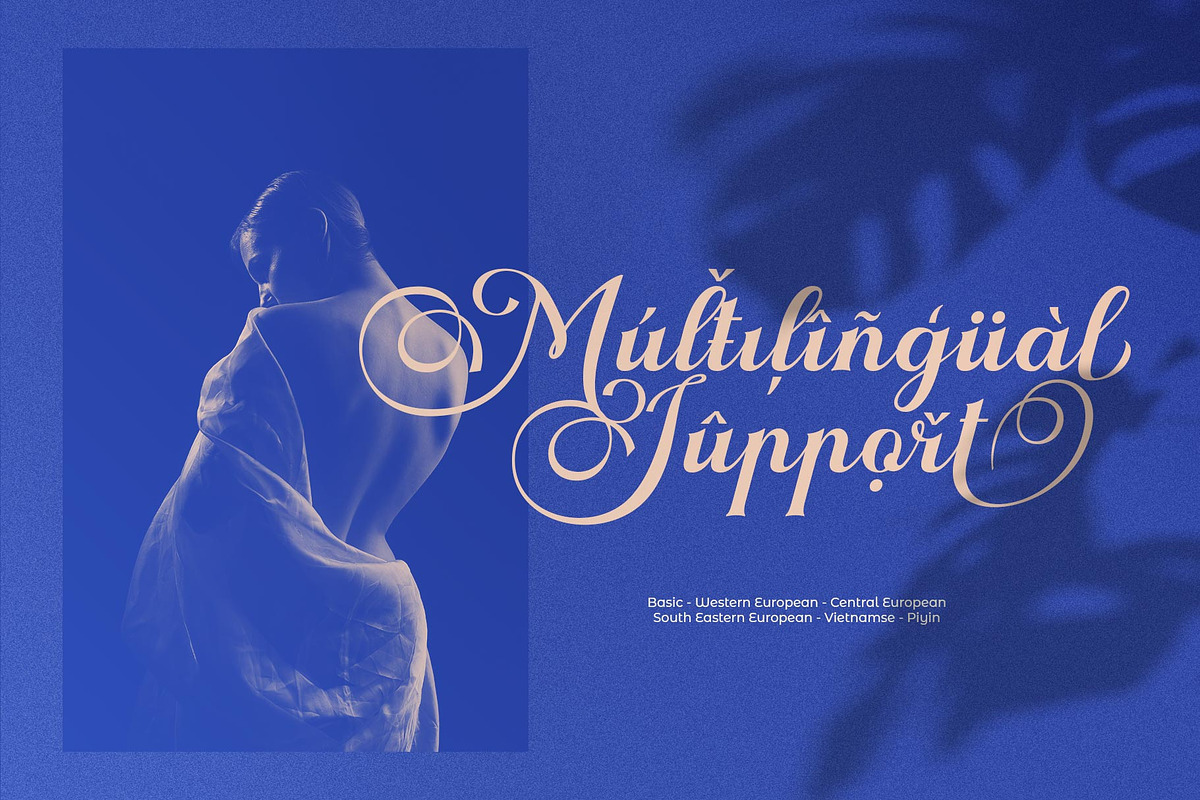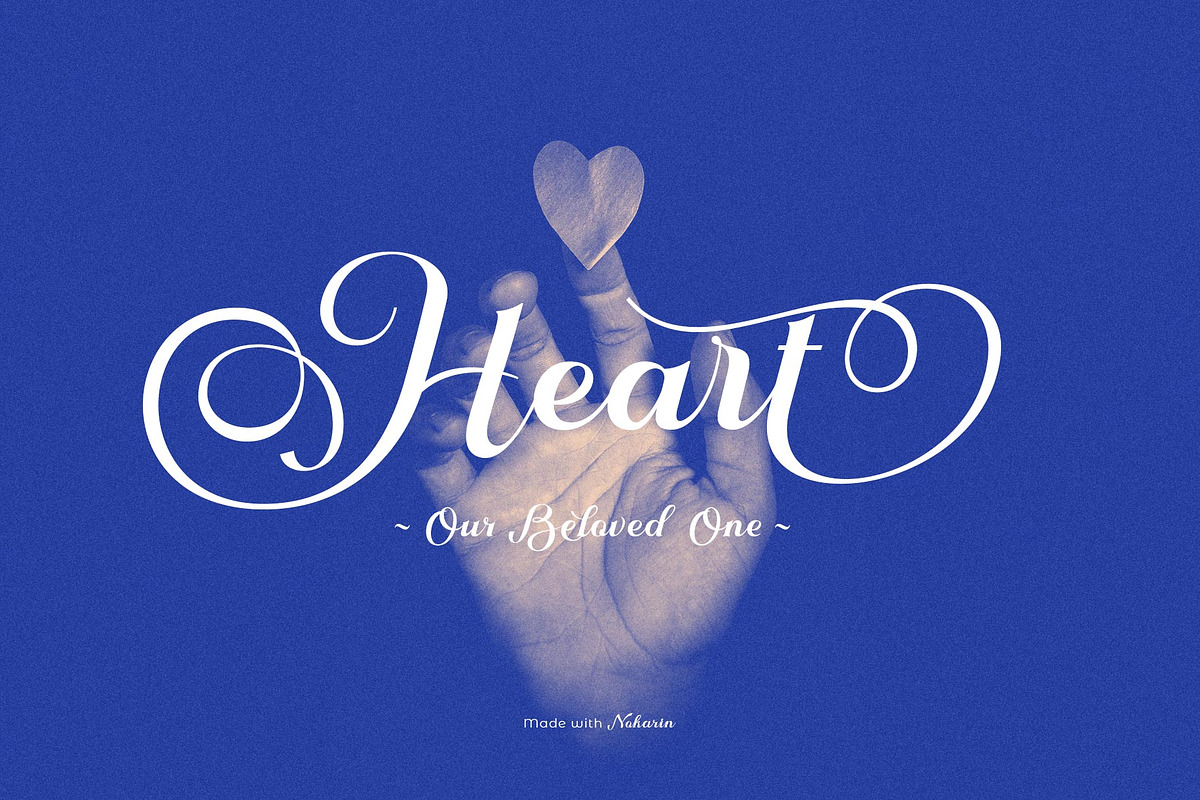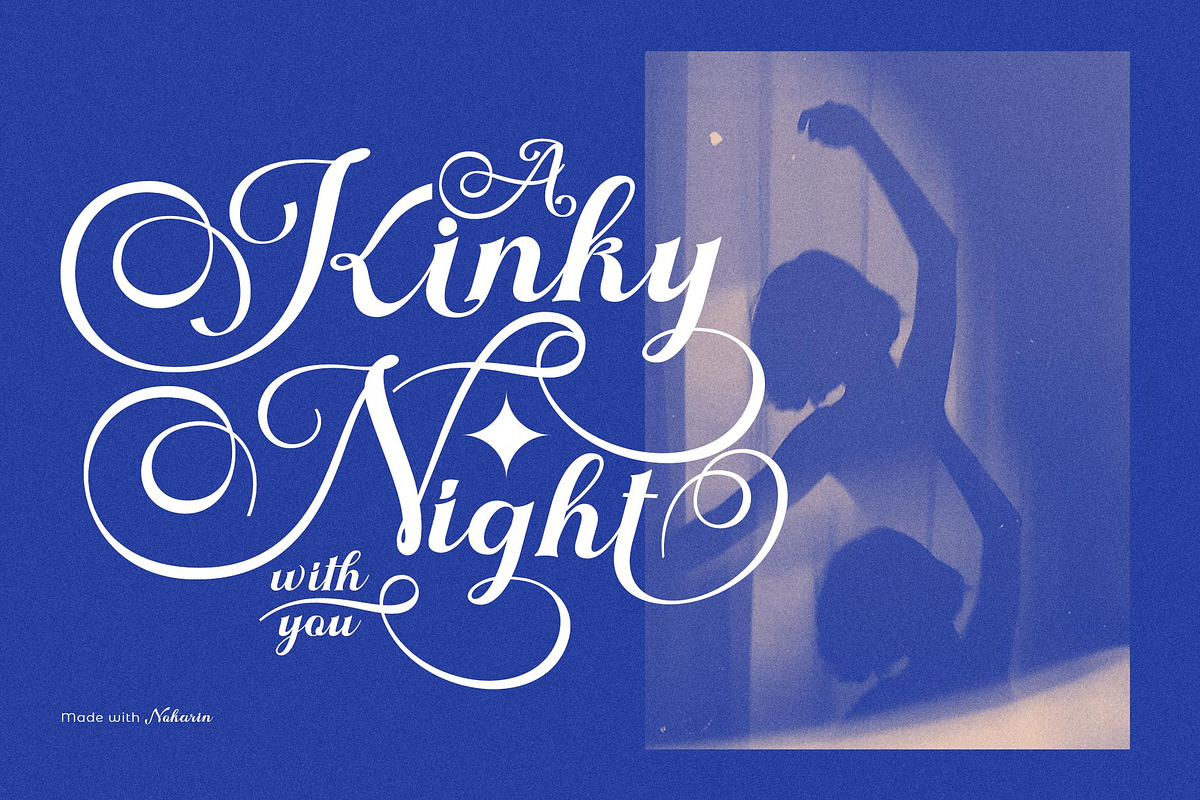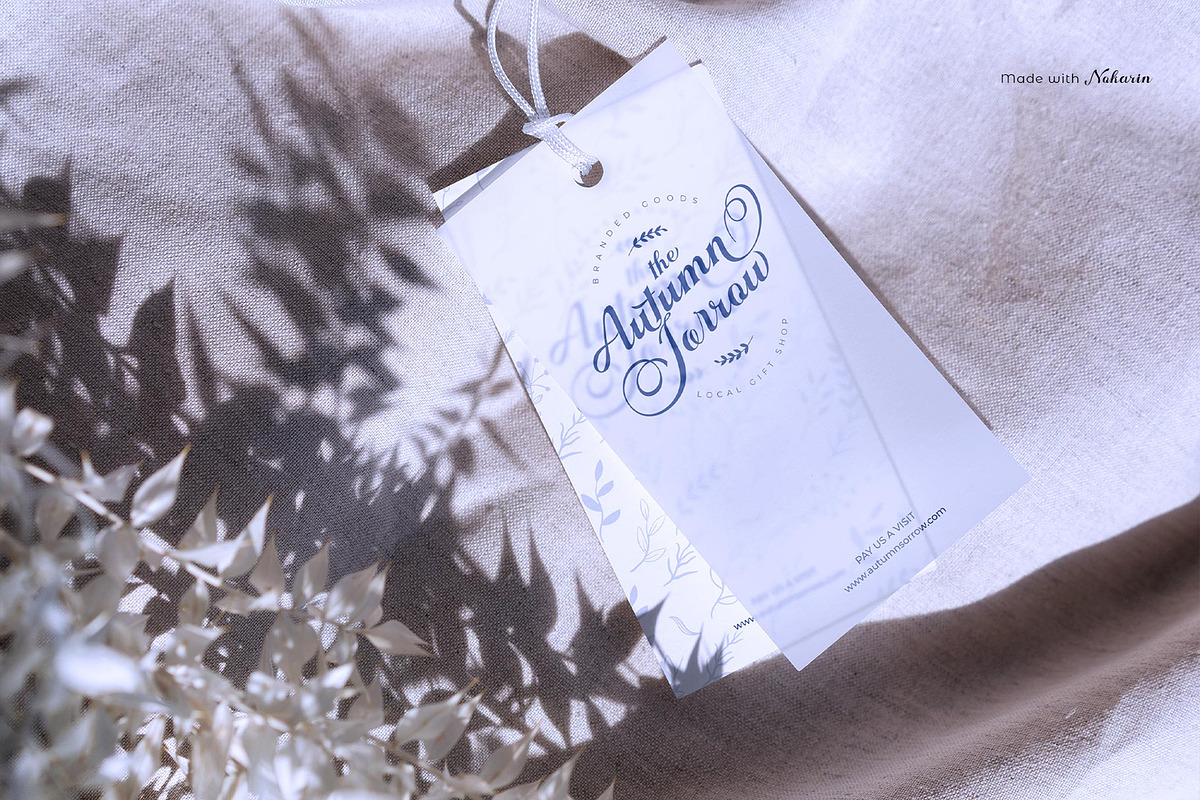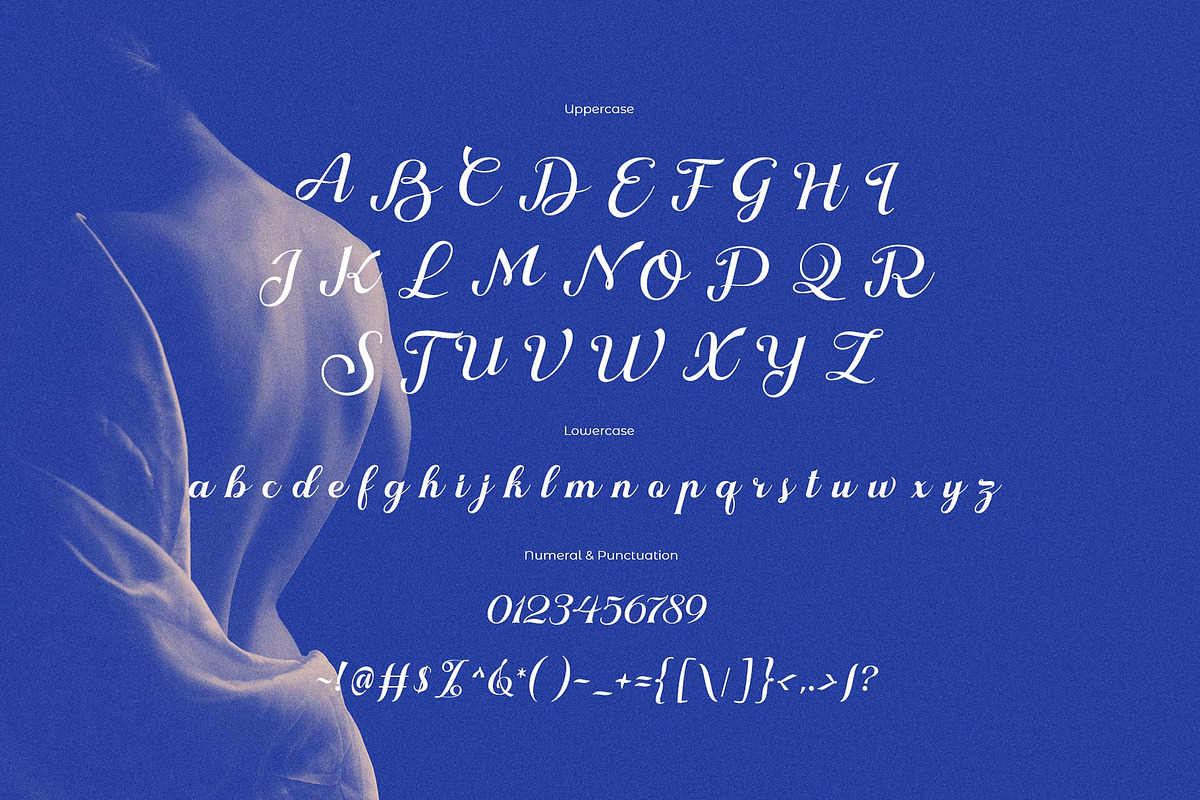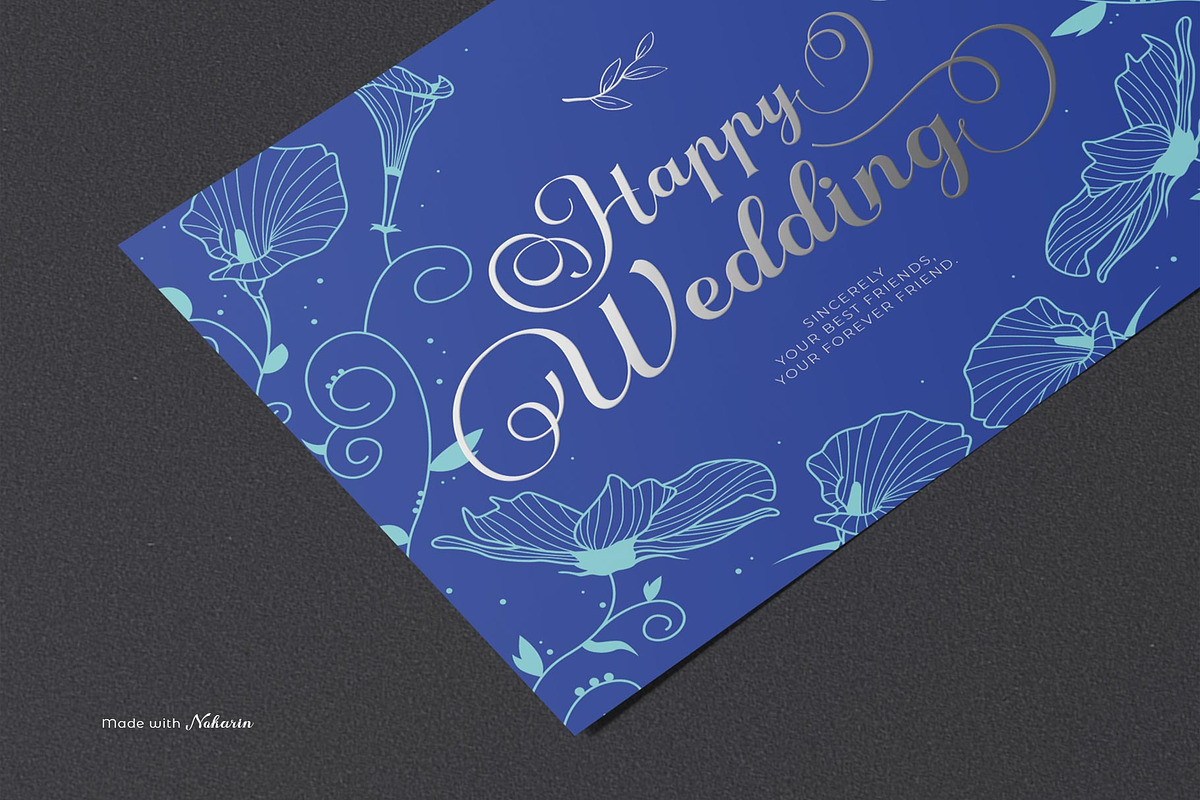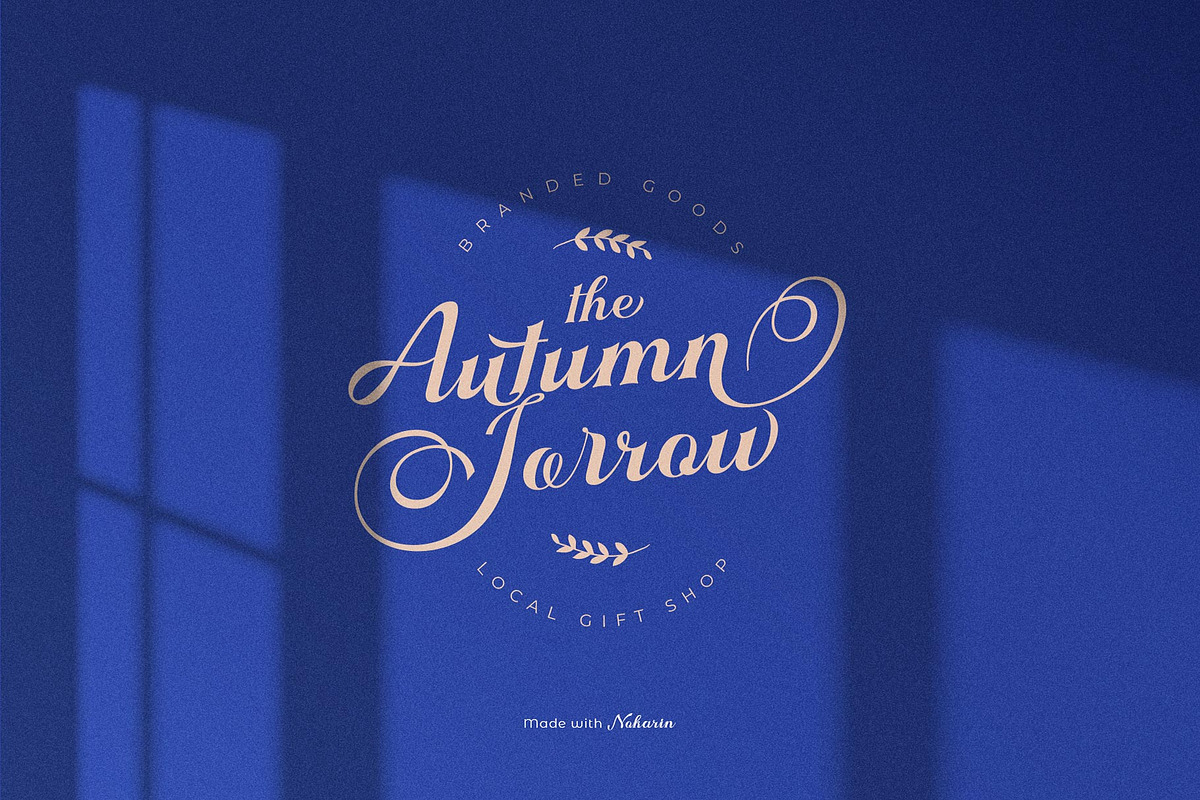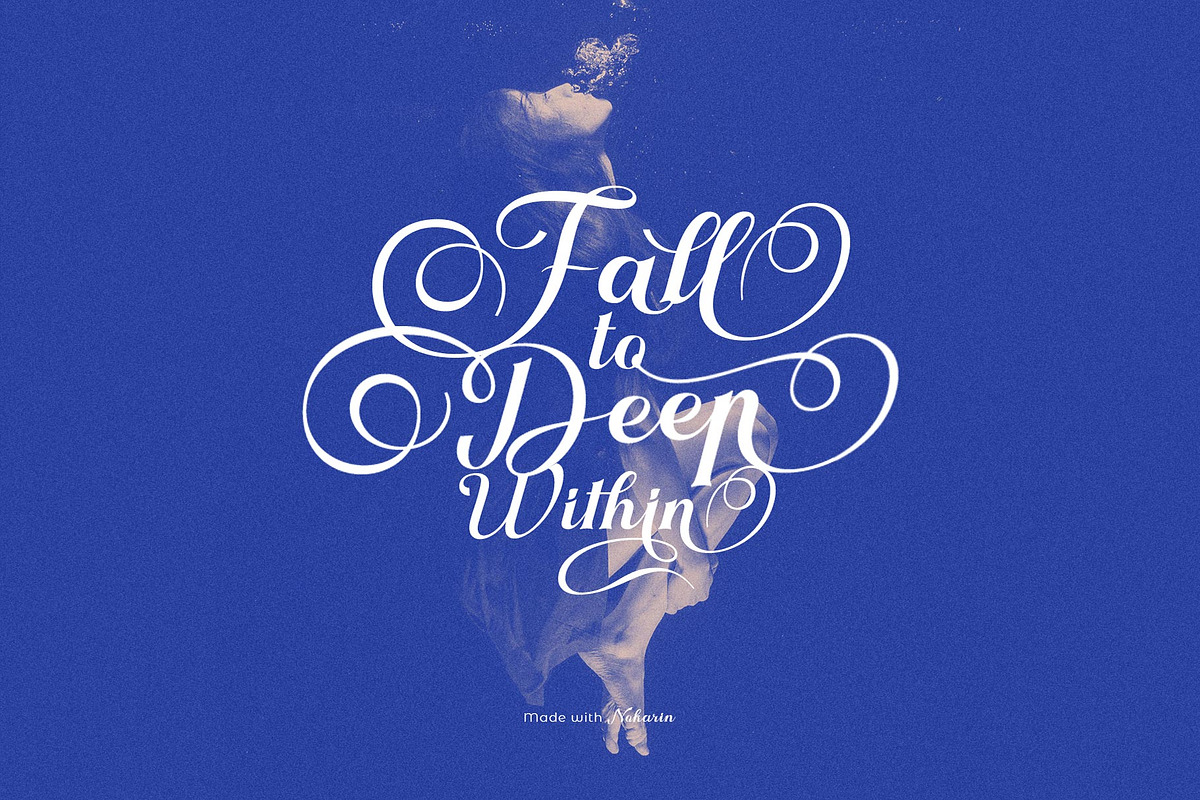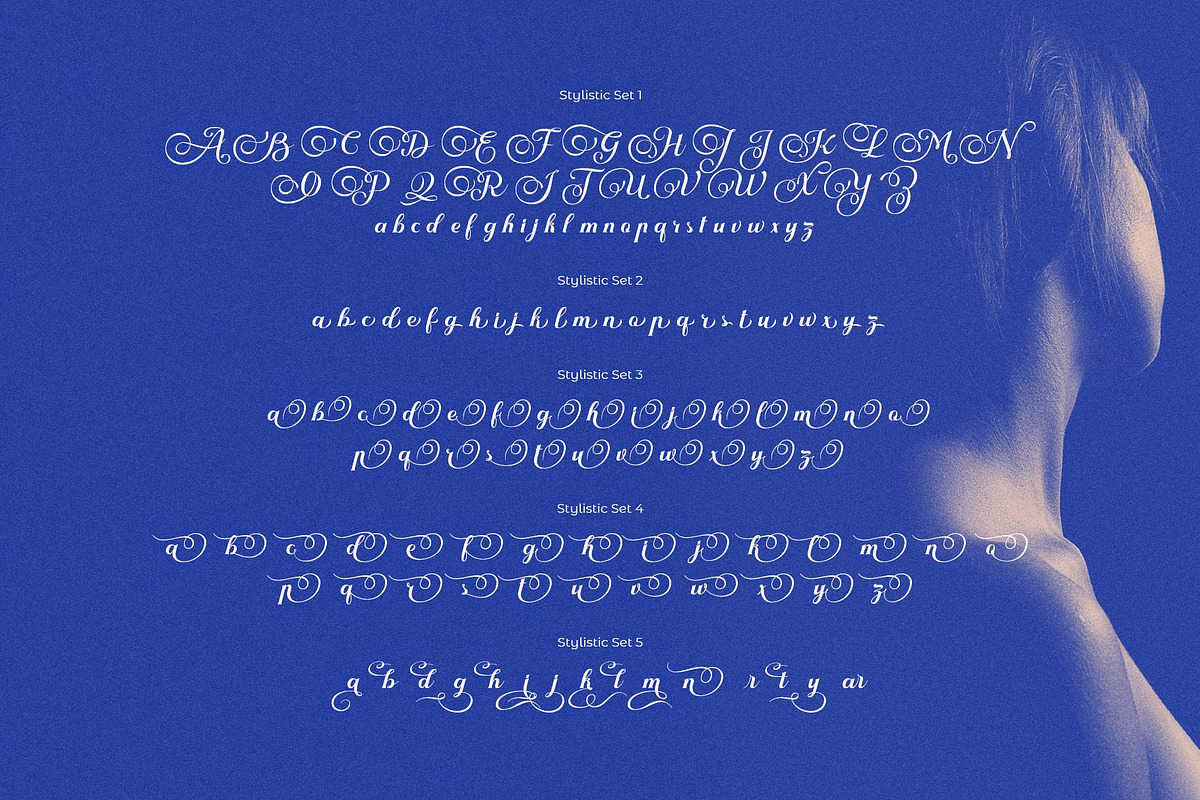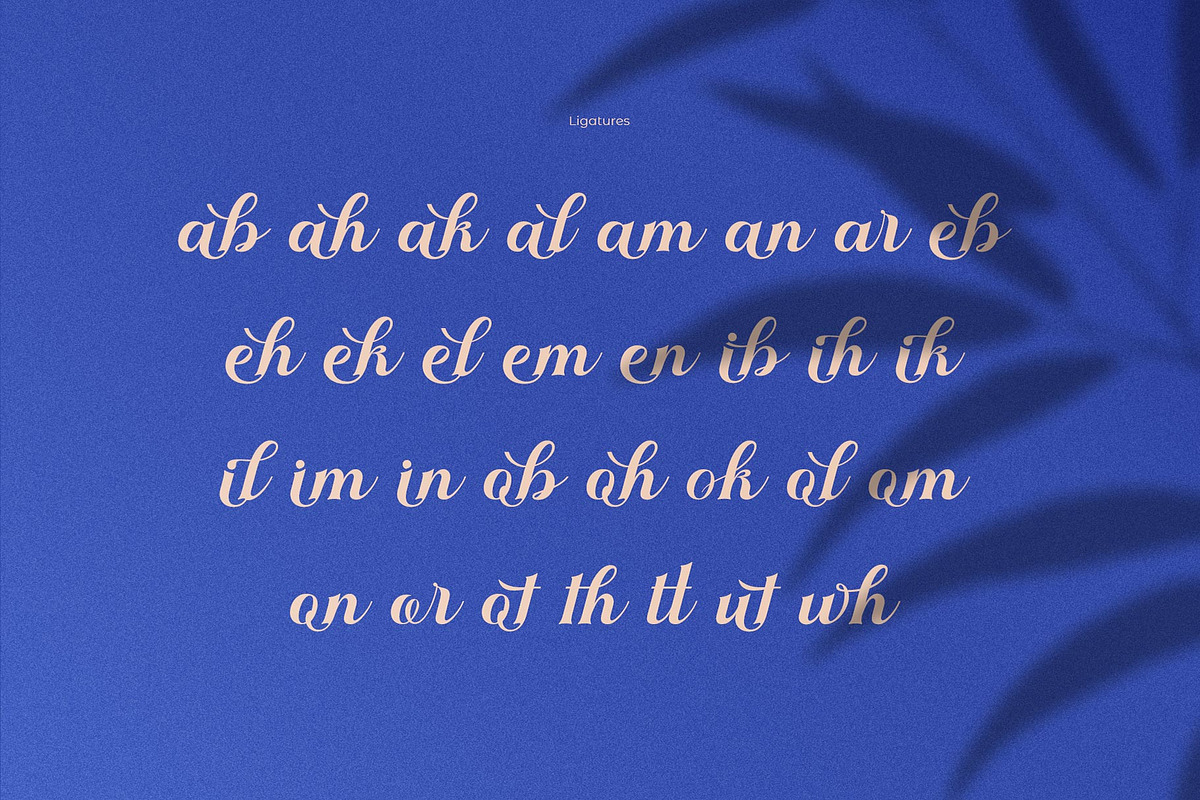
Nokarin Font
Introducing Nokarin Font
Nokarin Font Inspired by elegant script with handwritting. Carefully designed to work together in harmony making it perfect for wedding favors, book covers, greeting cards, logos, branding, business cards and certificates, even for any design work that requires classic, formal or extravagant.
Attempt calligraphy Desired, delight in those riches from claiming OpenType features and tell its exquisite fun and fervor make you euphoric What's more support your creativity! you might utilize this font precise undoubtedly.
Elegant script “Nokarin Font” are very easy to apply to any design, especially those with an elegant and smooth concept, apart from that this font is very easy to use in both design and non-design programs because all alternates and glyphs are supported by Unicode (PUA).